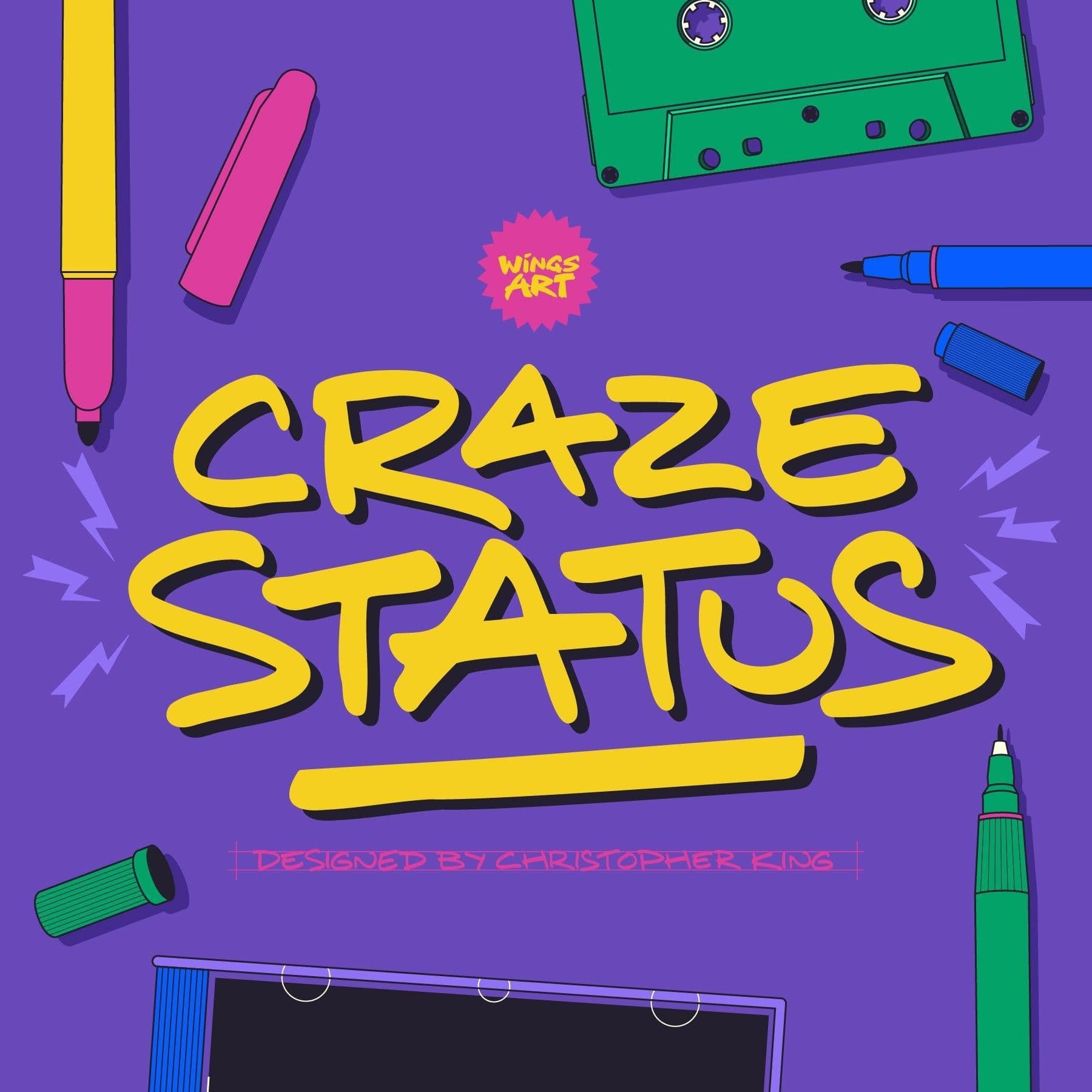
<p>Craze Status is a versatile handwriting font based on a selection of real marker pens, offering three unique weights and an authentic, analogue flair.</p> <p>Inspired by a broad spectrum of popular culture, this font has a personality that's equally at home in comic books or album covers, music videos, animations and movie titles. Its obvious links to comic book lettering inspired the all-caps design, bringing a looser, freehand flow reminiscent of home-made mix-tapes, or quick messages scribbled on a Post-it note. It's the perfect choice for adding the human touch to your work in an all-digital age.</p> <p>Craze Status is an all-caps font with unique uppercase and lowercase characters, numerals, and multilingual support, along with light, regular and bold weights. It's worth noting that each weight was written separately, giving them an individual appearance informed by the pen that drew them. They're designed to complement each other and provide a truly analogue look. In addition, each weight comes with complete alternative alphabets and numerals, plus switchable Open Type ligatures for the 'oo's and tt's, to further enhance the look.</p> <p>Craze Status Family (V.1)<br> • Light<br> • Regular<br> • Bold<br> • Light Alternatives<br> • Regular Alternatives<br> • Bold Alternatives<br> • Formats: OTF, TTF, WOFF</p>